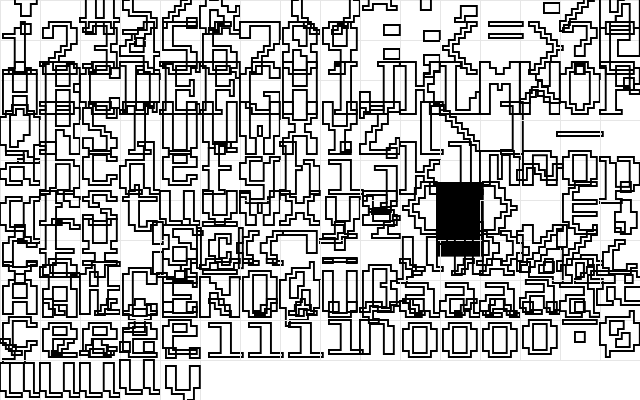
FixCystNeon Regular
Design Context for FixCystNeon Typeface
FixCystNeon has a distinctly futuristic character, with geometric precision and clean angles that feel at home in technology, gaming, and sci-fi contexts.